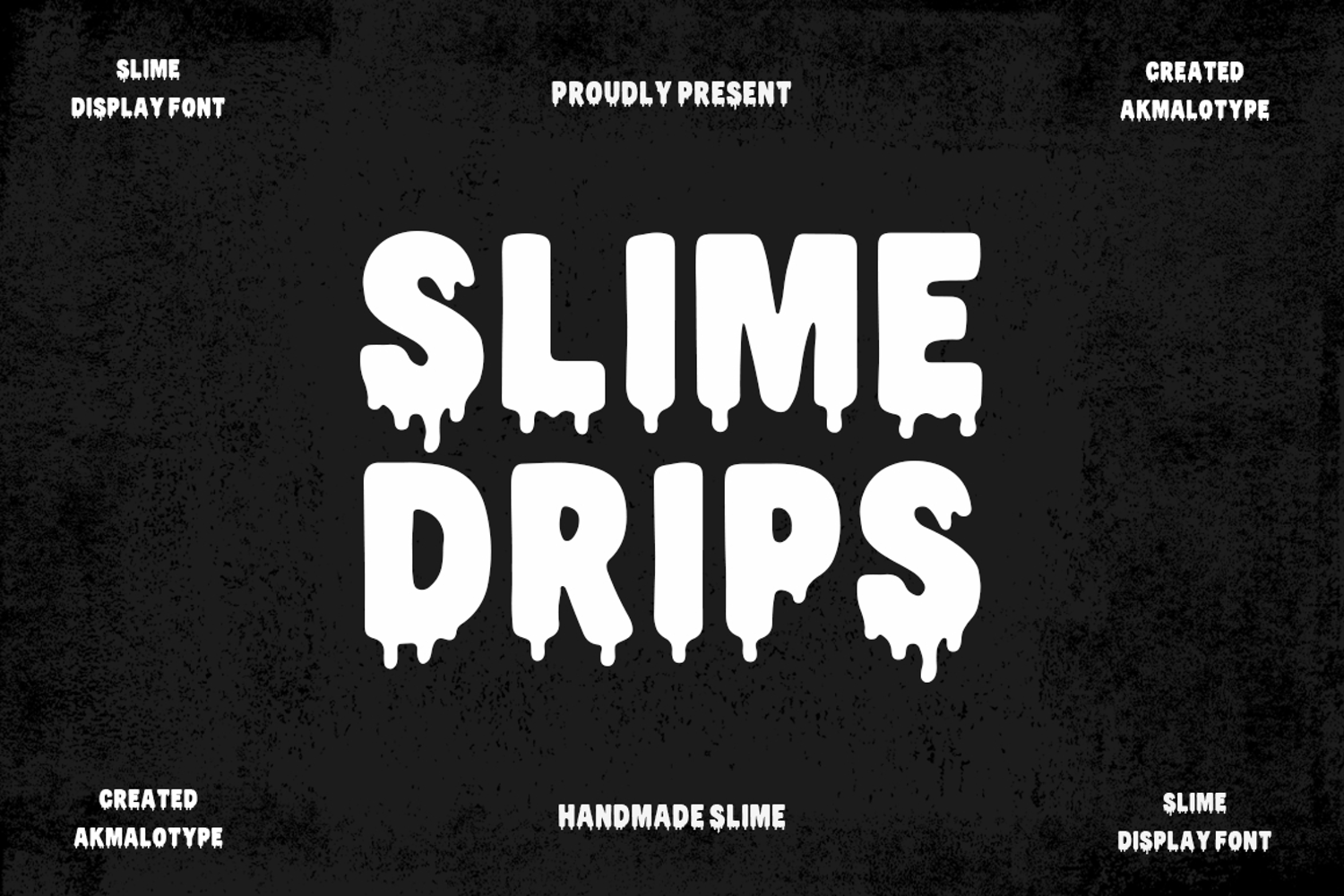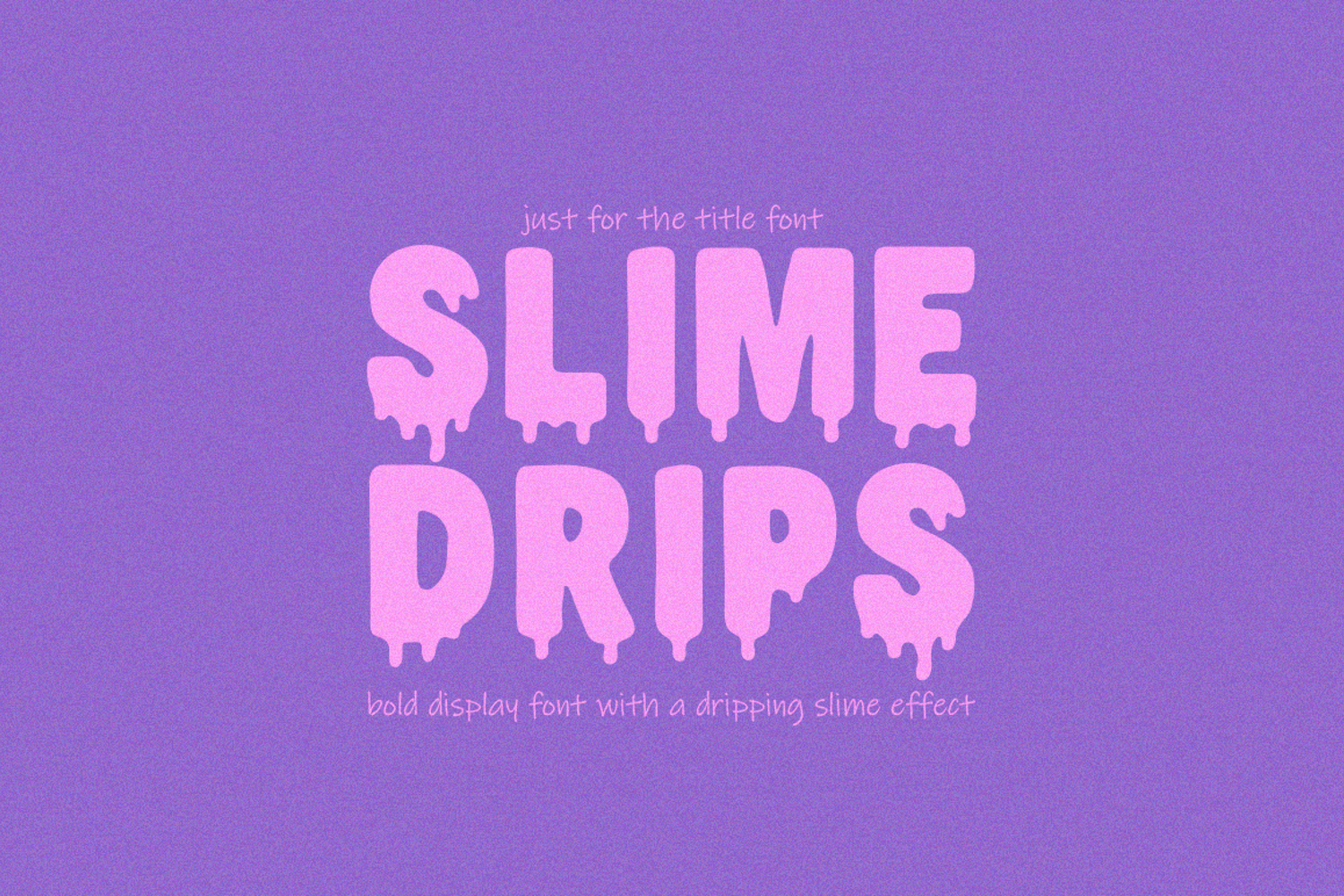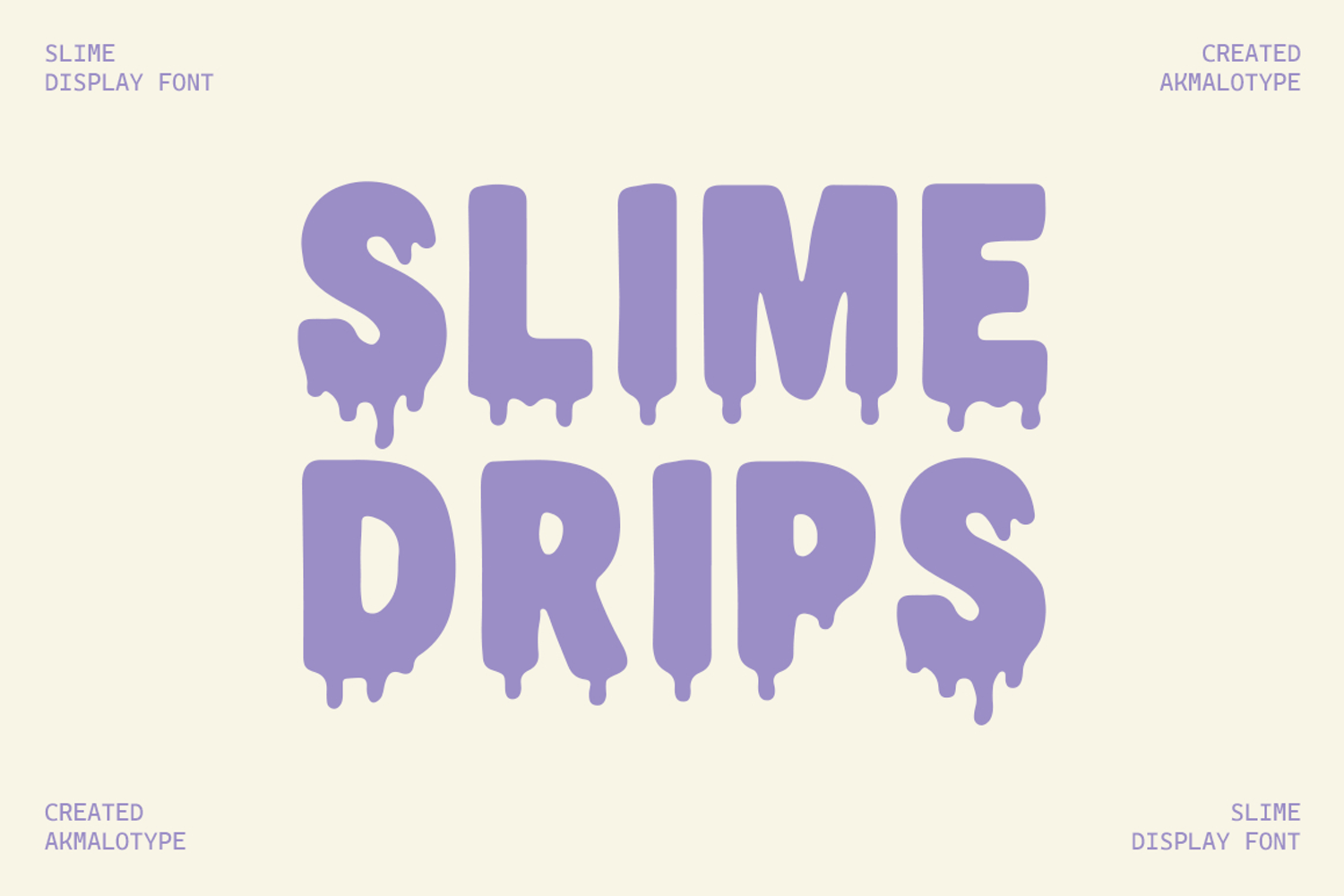
Slime Drips - Slime Effect
Slime Drips
SLIMEDRIPS is a bold display font with a dripping slime effect that creates a playful yet spooky look. Perfect for Halloween designs, horror themes, kids’ projects, or any artwork that needs a fun, gooey, and eye-catching style.